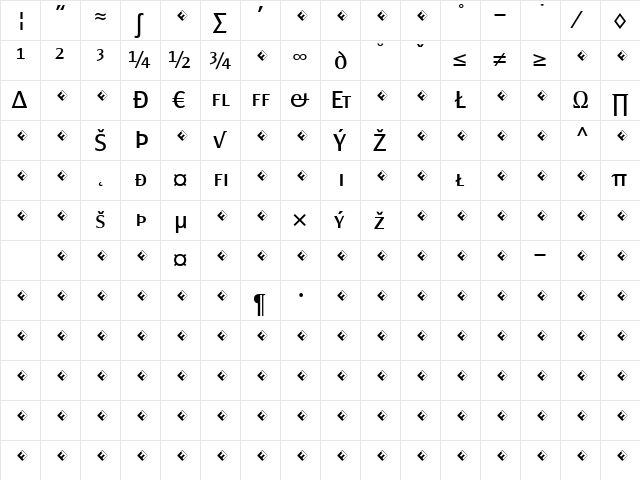
PageSans-RegularSCExpert Regular Font Preview
PageSans-RegularSCExpert Regular
PageSans-RegularSCExpert Regular Font Details
| Foundry | Albert Boton, published by FontShop International for the FontFont Library |
| Designer | Albert Boton |
Design Context for PageSans-RegularSCExpert Typeface
PageSans-RegularSCExpert takes a measured approach to typography — its balanced proportions and neutral character make it a reliable workhorse for both digital and print work.